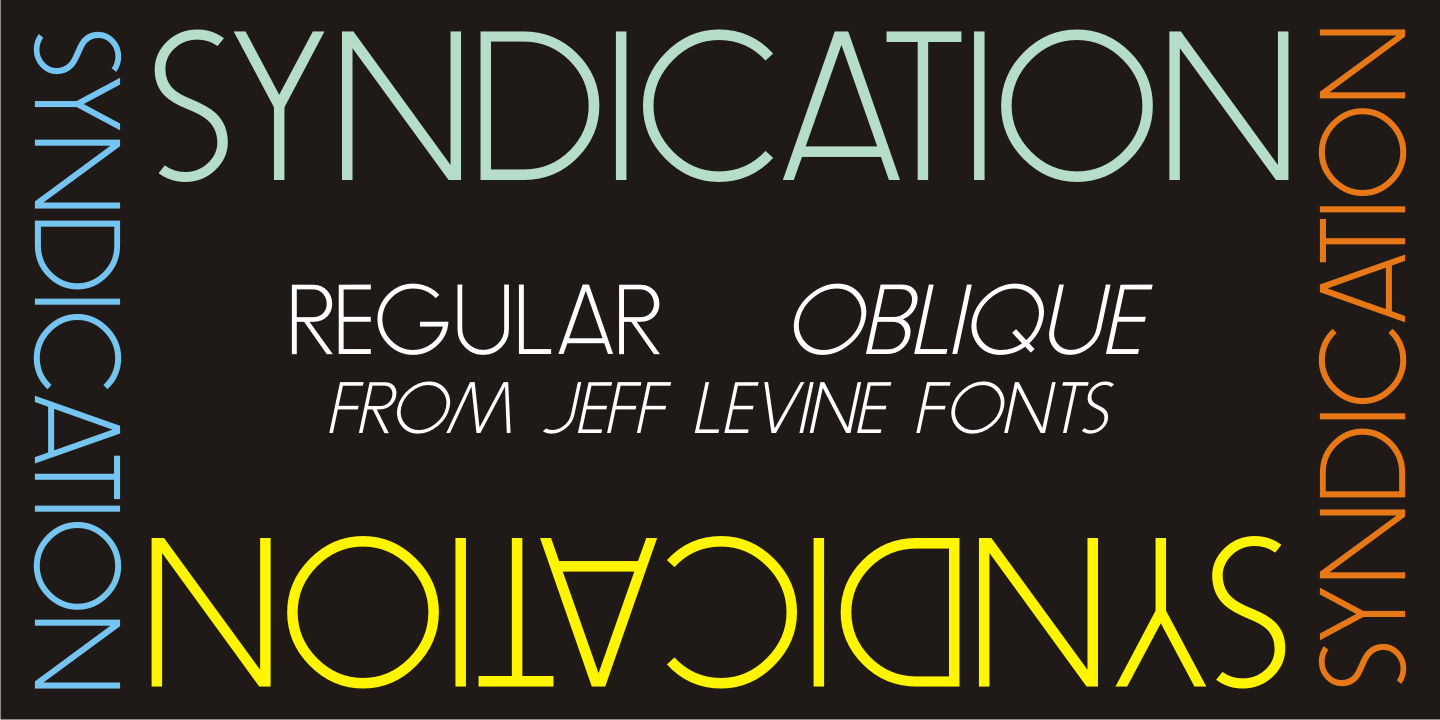
Syndication
Syndication JNL was derived from Outline Sans JNL. By removing the outer letters, a thinner character set remained. This typeface is available in both regular and oblique versions.